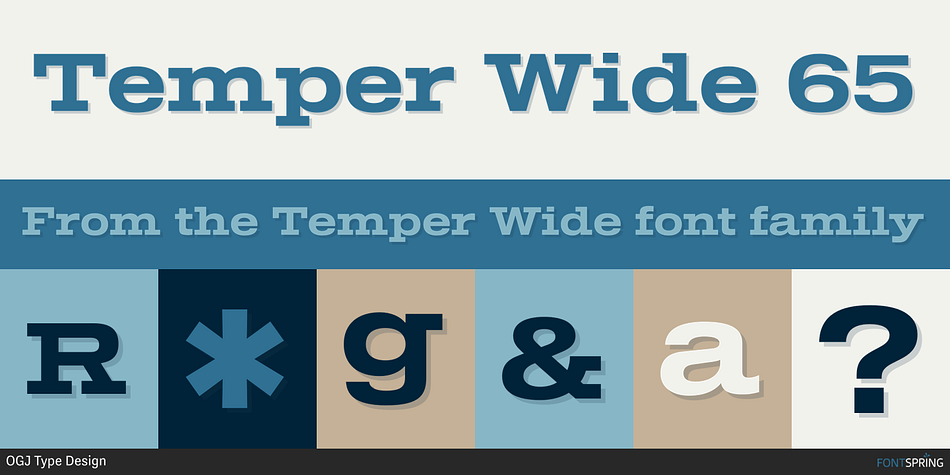
Temper Wide 65
Temper Wide is a slab serif font family. This typeface has eight styles and was published by OGJ Type Design.
Temper Wide was designed in 2018 by type designer Jeschke in Berlin.
The font consists of many cuts from light to bold and is formally based on its predecessor, Sequel 100.
A characteristic feature of the Temper Wide is the almost equal thickness of the vertical and horizontal strokes, the horizontally cut endings of the letters a, c, e, g, s, as well as a striking R.
Unlike other slab faces, the forms are absolutely clean and the x-height, in the normal thickness gradation a bit higher, in favor of legibility.
Designer Oliver Jeschke